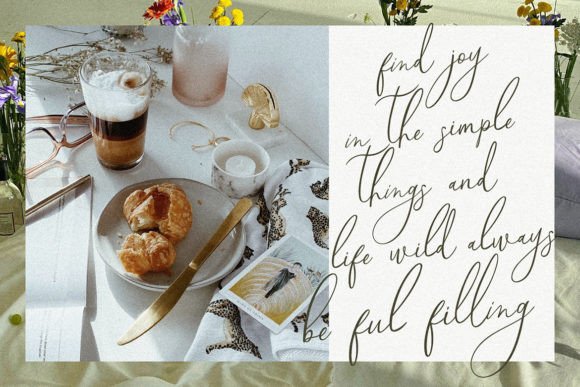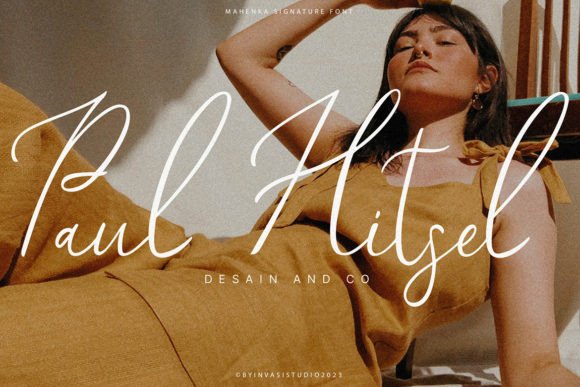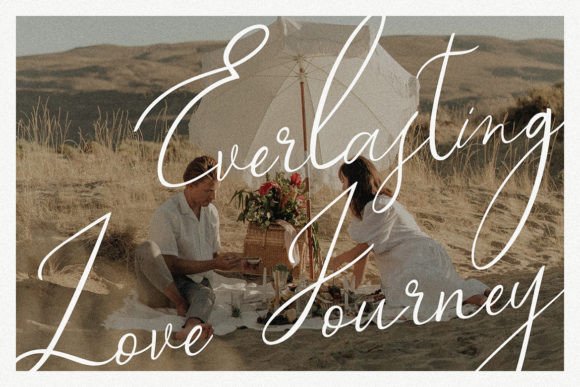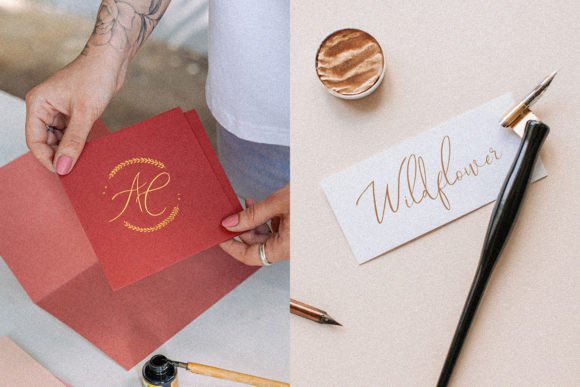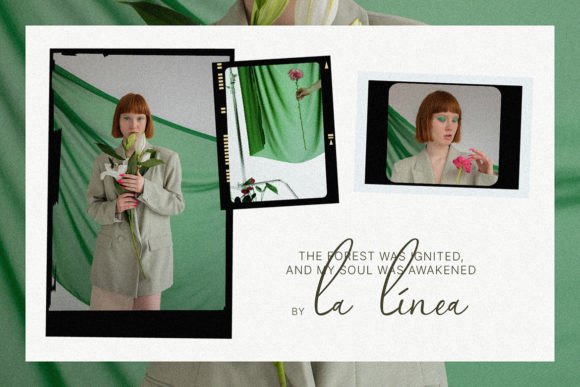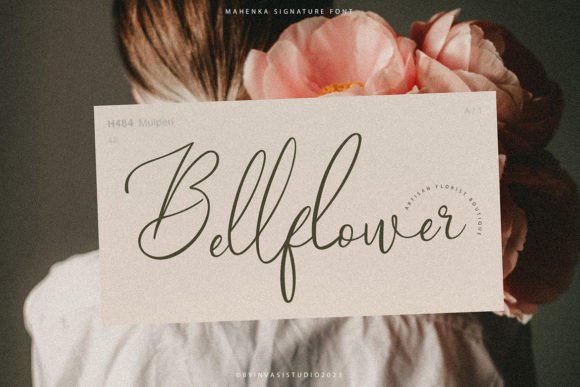
Introduction to Mahenka Font
Mahenka is a stylish signature script font that exudes luxury and elegance, with its unique uppercase height making it stand out.
This font features alternate characters, ligatures, and support for Latin multilingual characters, allowing you to create a truly personalized and sophisticated design Perfect for high-end branding, wedding invitations, fashion, beauty, or any design project that requires a touch of elegance and style, Mahenka is a must-have for any designerโs collection.
Key Features of Mahenka Font
Why Choose Mahenka Font?